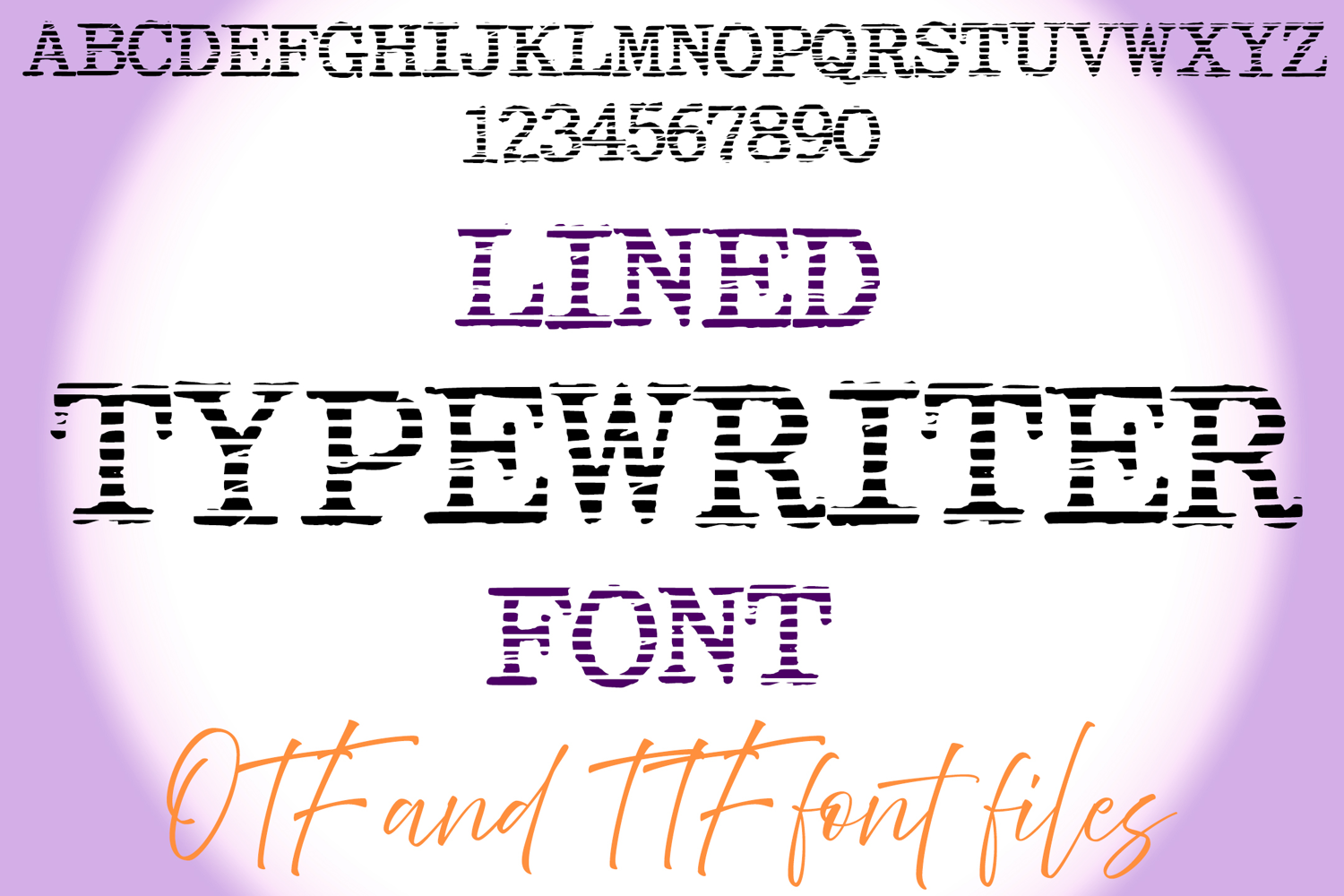
Lined Typewriter Lettering ABC Text Broken Font Alphabet OTF IllustrationÂ
A distressed font where you can create your own words and colour them to your vision!